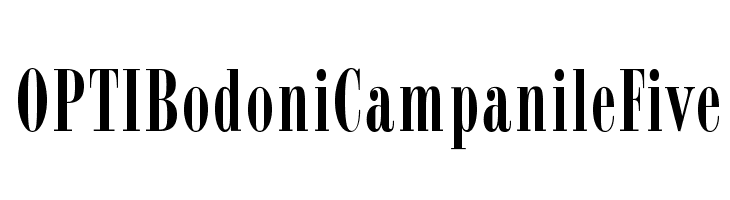
( Fonts by Castcraft Software - OPTI Fonts Archive - opti.netii.net - Personal-use only. For commercial use please contact owner. )
A bold, condensed font with a vintage, gothic flair.
A modern, geometric sans-serif font with uniform width and clear characters.
( Fonts by Albert Kalingga )
A bold, playful font with a chunky, hand-drawn appearance.
( Fonts by Hendra Pratama - HPTypework - https://hptypework.com - Personal-use only. For commercial use please contact owner. )
A casual and elegant handwritten font with fluid, connected letterforms.
( Fonts by Wei Huang - Personal-use only. For commercial use please contact owner. )
A bold, italic sans-serif font with a modern and dynamic style.
( Copyright (c) 2012, vernon adams (vern@newtypography.co.uk), with Reserved Font Names 'Oxygen' )